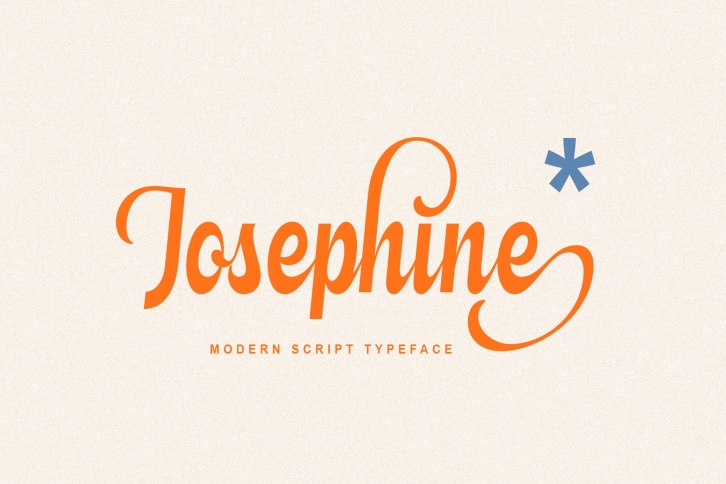
Josephine is a gorgeous font that was realeased on August 23, 2021. The font can be used in many style contexts and design environments. Perfect for invitations, magazines, websites, logos, and more! It was designed by BekeenCo and the file size is 2.23 MB. Thanks for checking out this font!